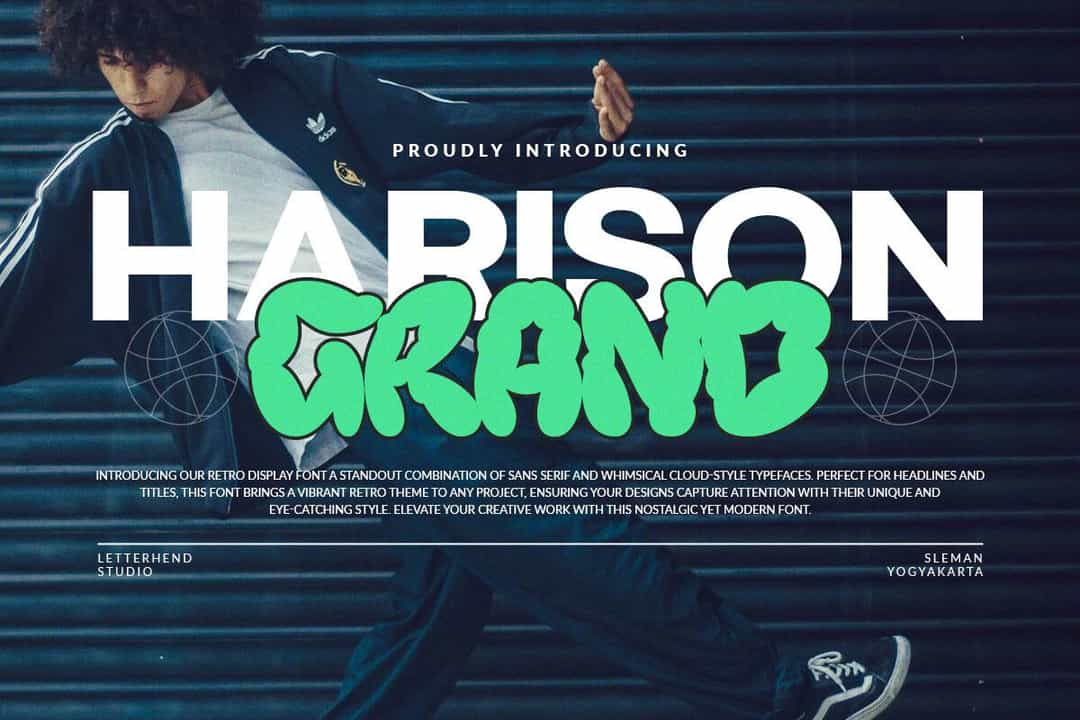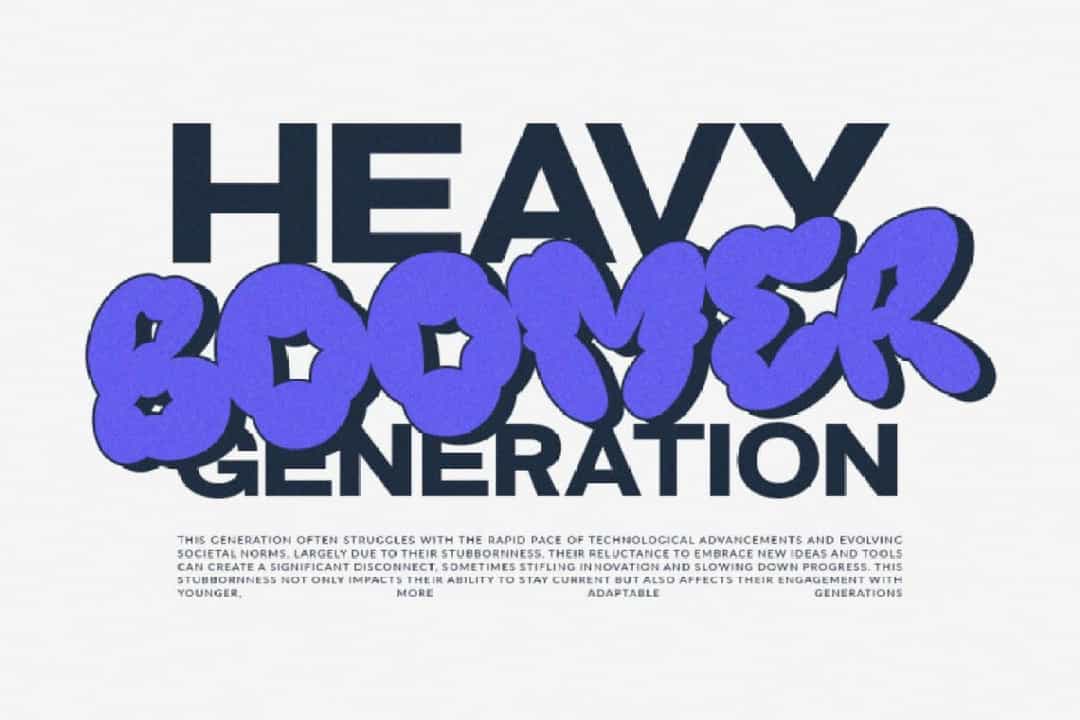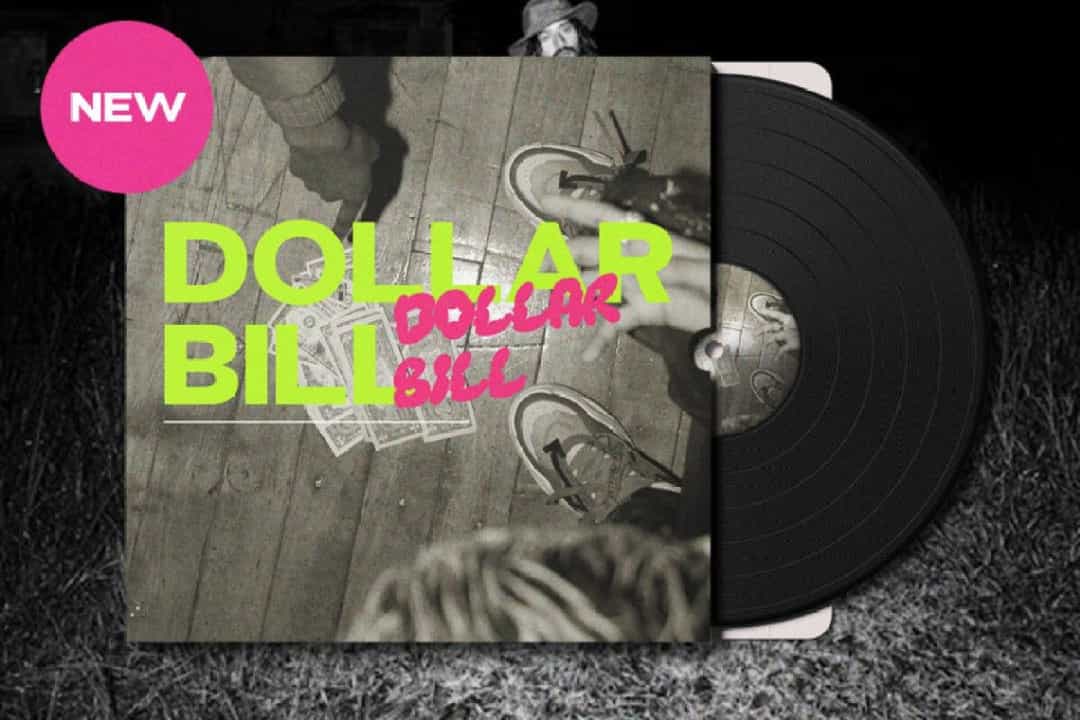
Harison Grand is a retro display font, which is a perfect mix of the sans serif and the cloud-style typefaces. Ideal for headlines, posters, logos and other related designs, this font is perfect for giving your projects a fun and lively look of the past. Step up your creative pieces with this font, which retains an old school feel but is presented in a contemporary manner.